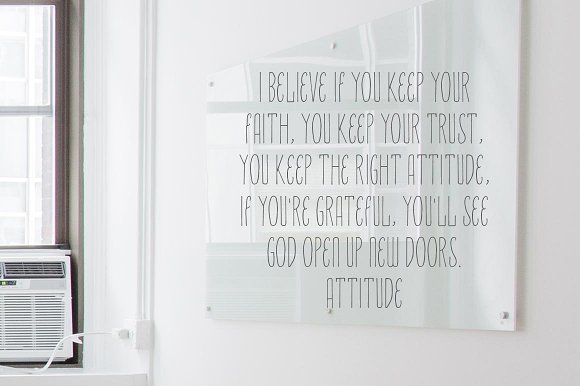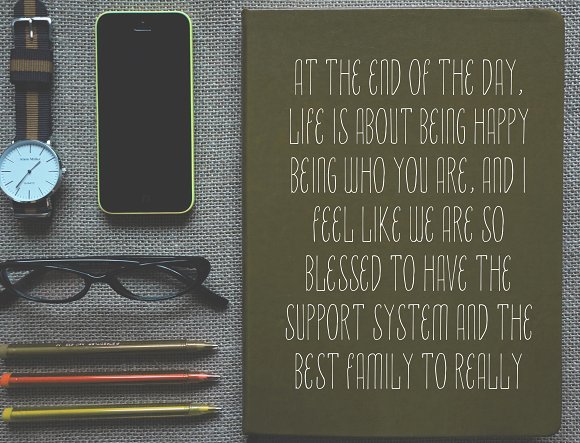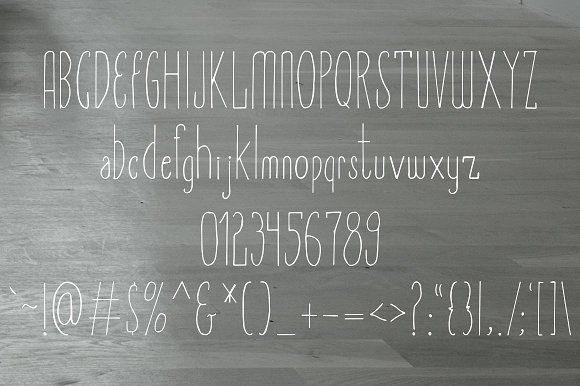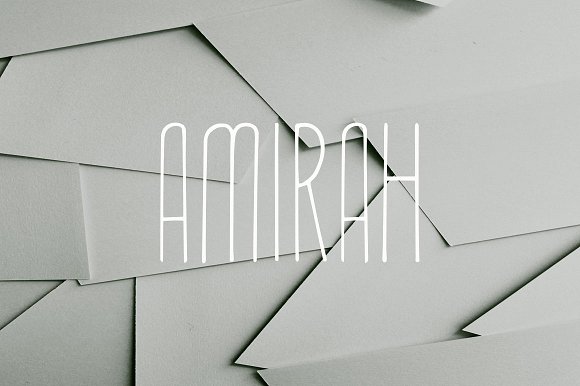
Amirah Display Typeface
Introducing Amirah | A handmade display & handwriting font, it’s perfect for logos, name card, magazine layouts, invitations, headers, or even large-scale artwork.